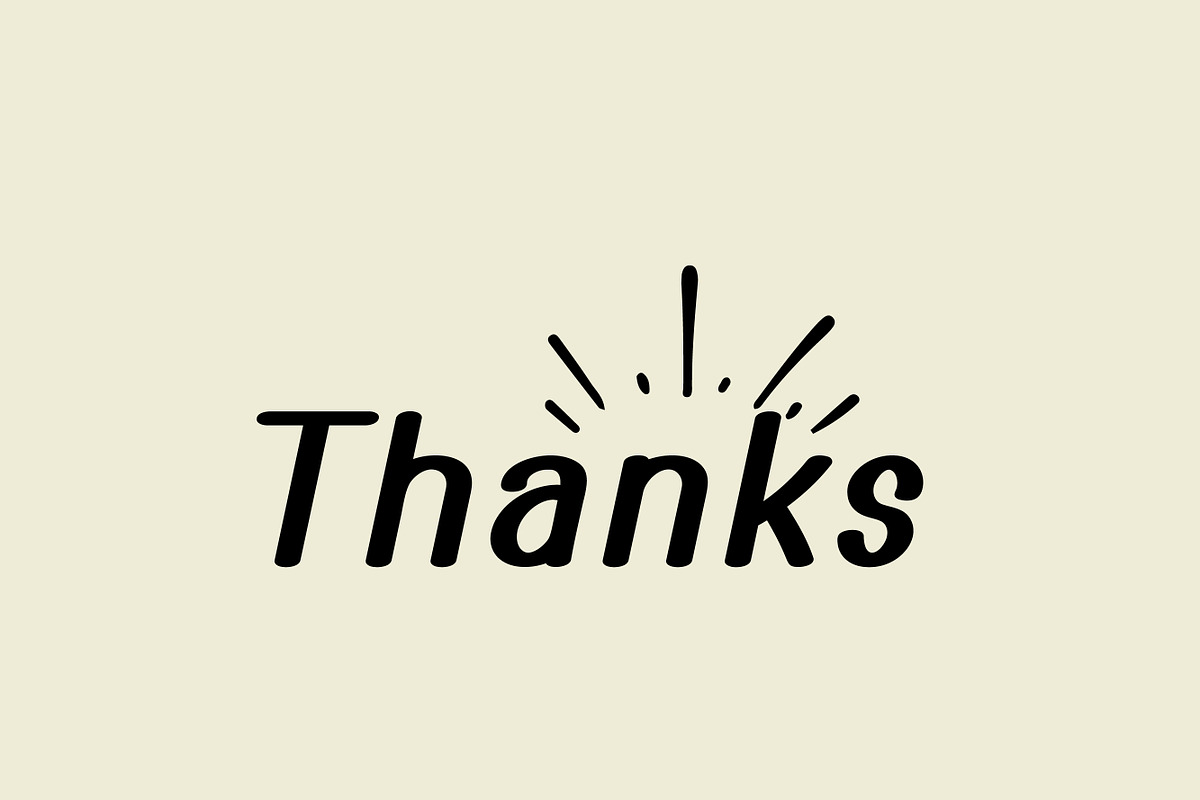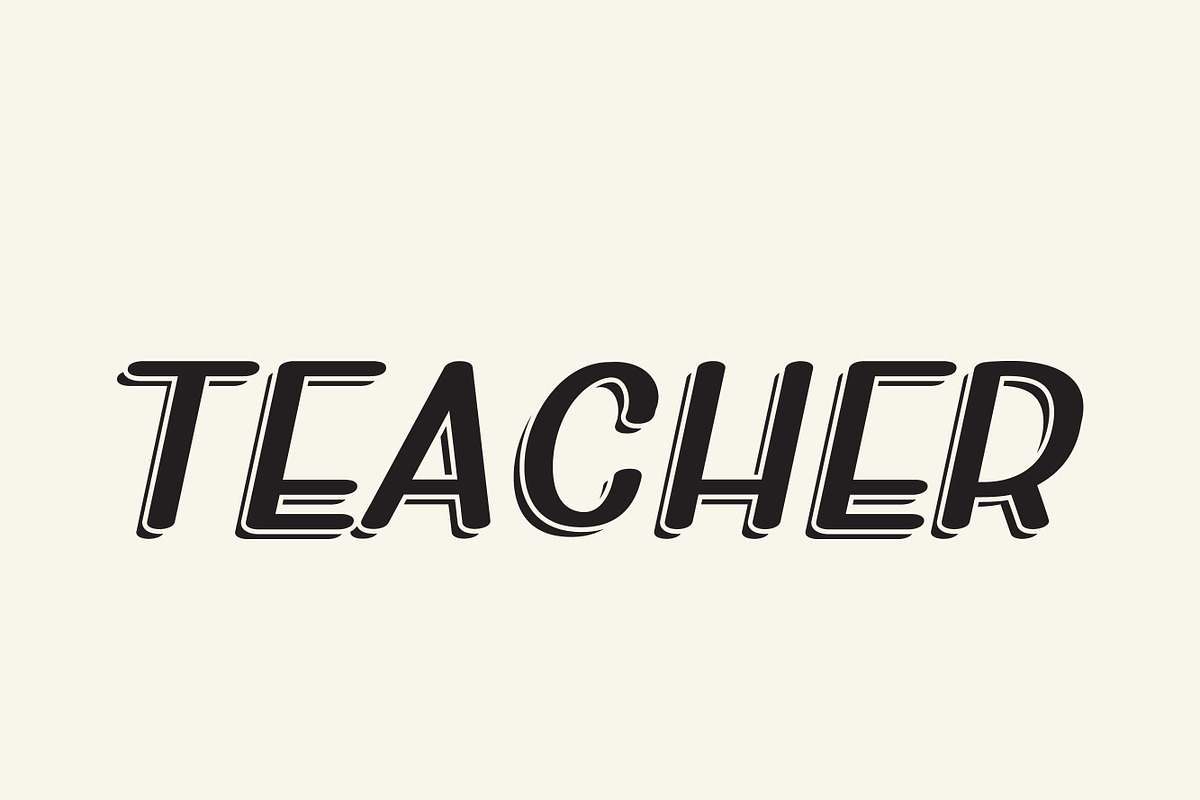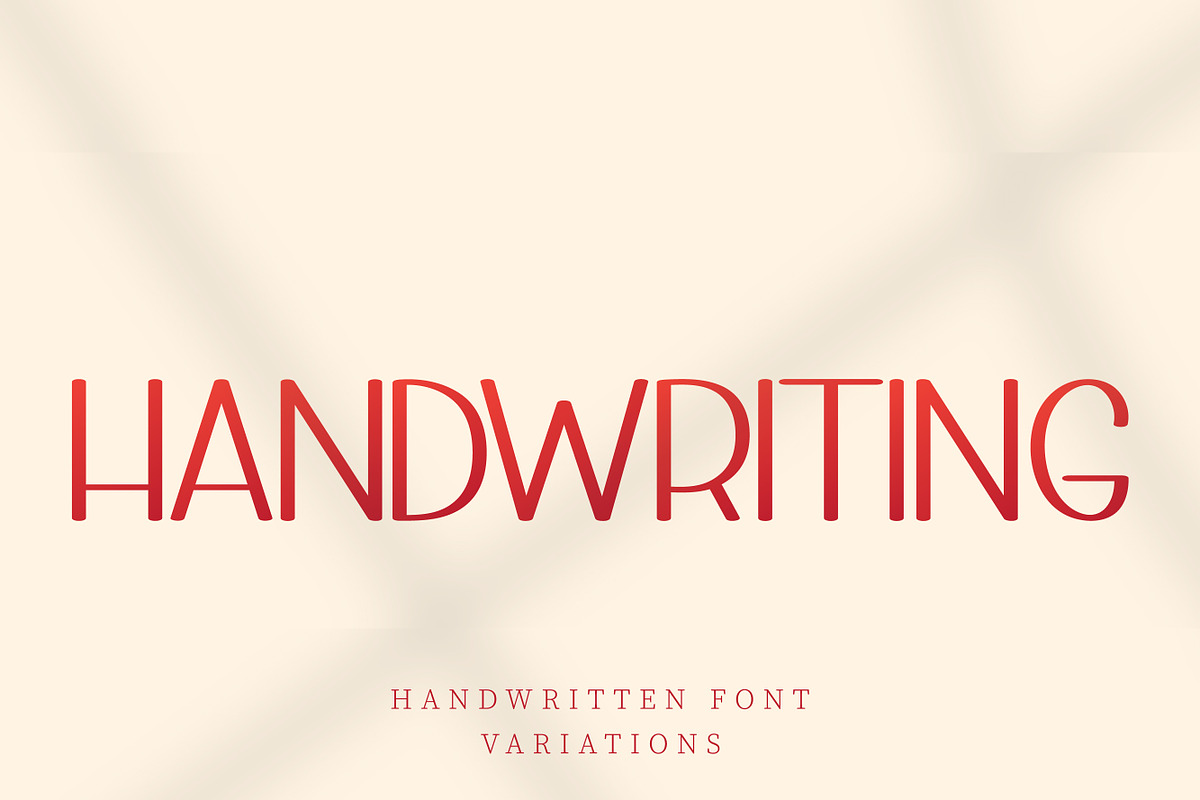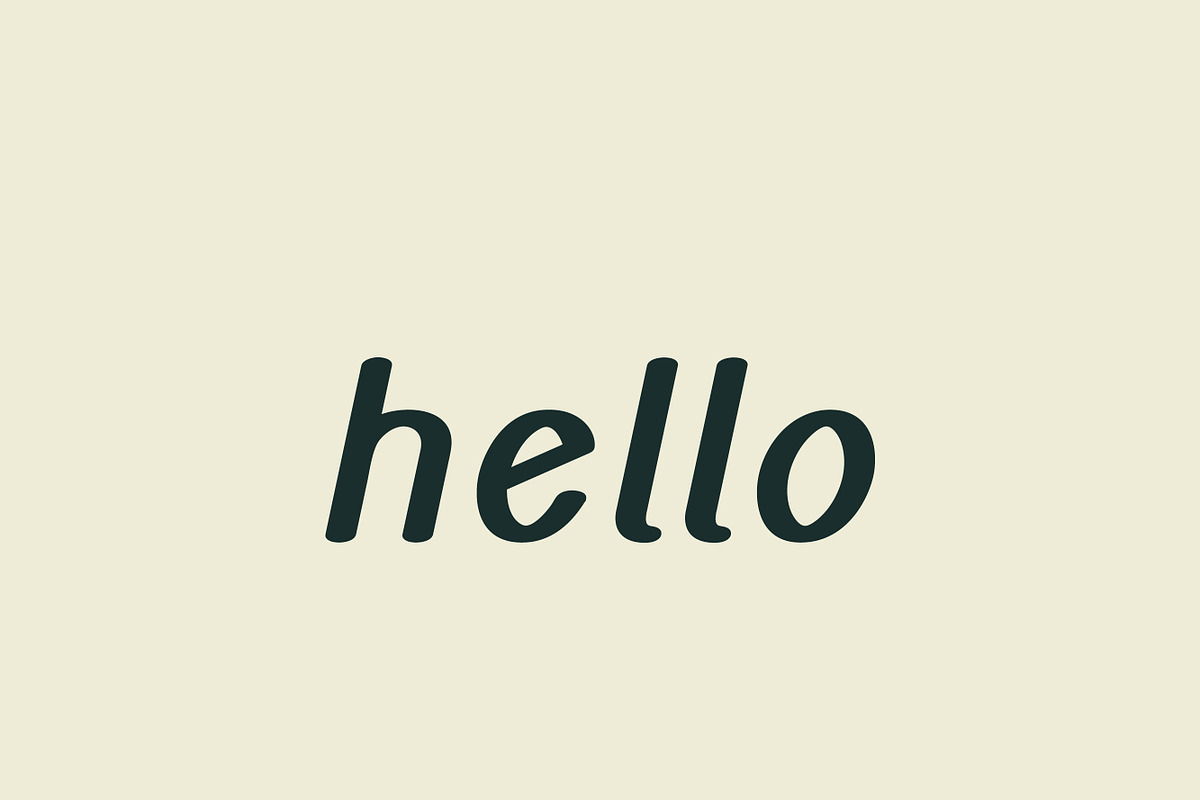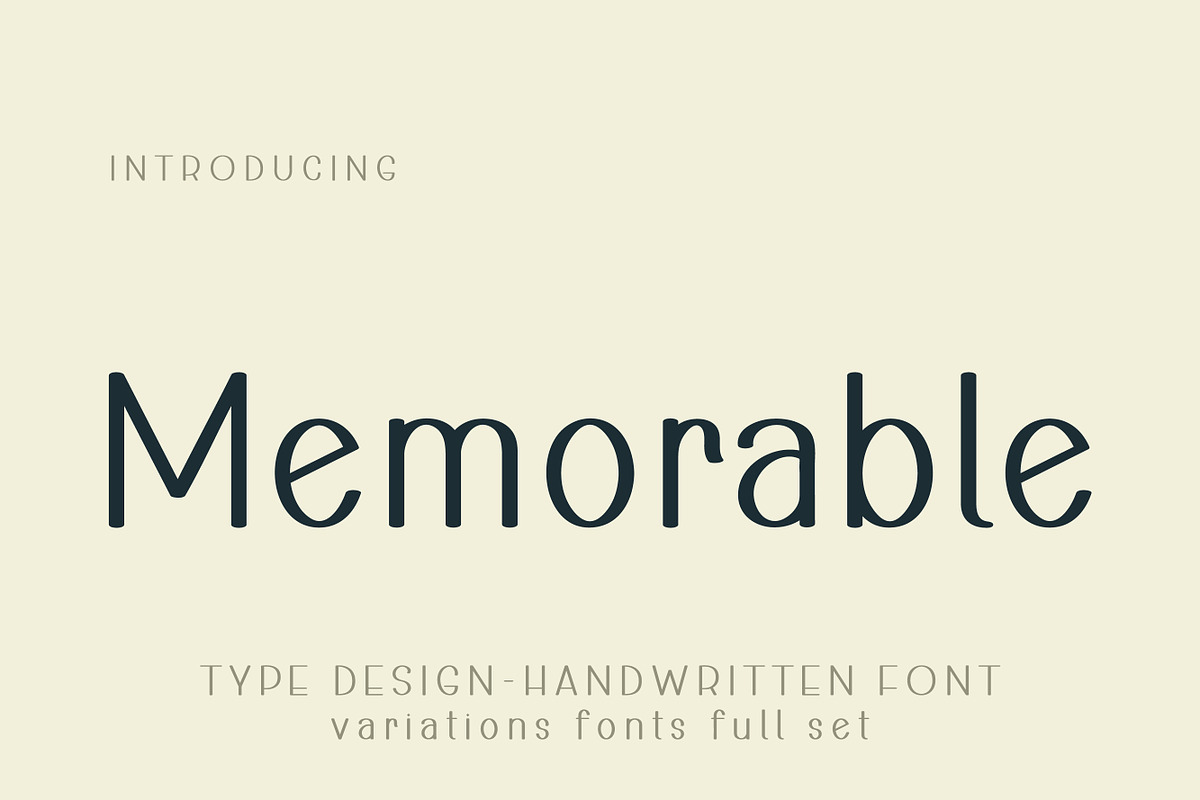
Memorable
Memorable is a sweet and friendly handwritten font. Its natural and unique
style makes it incredibly fitting to a large pool of designs. The only limit is
your imagination!